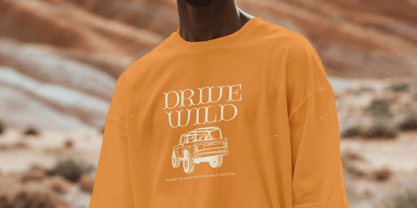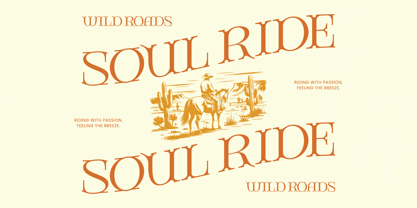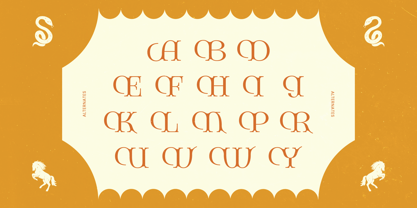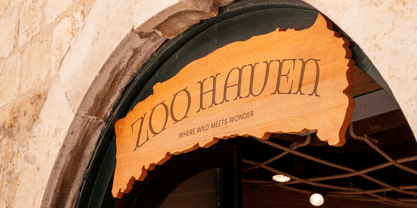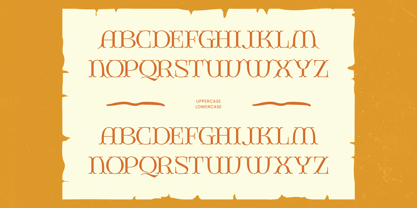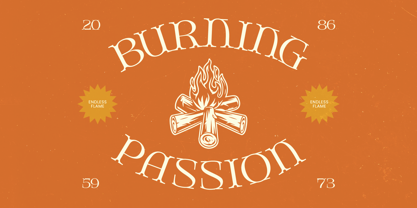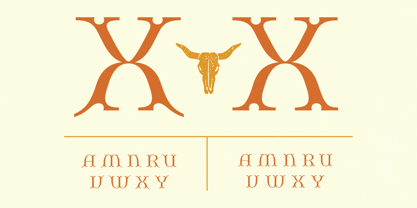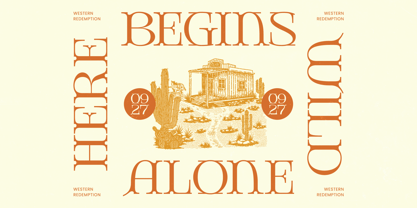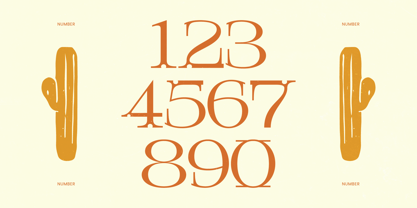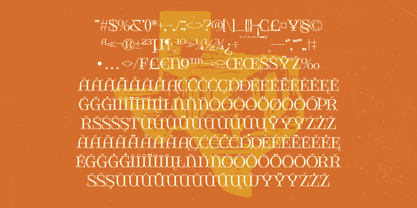
The Giqer Font Family was designed by Heru Utama Putra and published by Timelesstype Studio. Giqer contains 2 styles and family package options. More about this family
Giqer is a western vintage serif font inspired by classic frontier typography, heritage labels, and old Americana signage. Designed with strong slab-influenced serifs, decorative inner cuts, and confident proportions, this typeface captures the authentic character of traditional western print while maintaining modern clarity. The bold structure and subtle ornamental details give Giqer a rugged yet refined personality, making it ideal for logos, whiskey labels, brewery branding, packaging, posters, badges, apparel graphics, and rustic editorial layouts. With 349 glyphs and 17 alternates, it offers flexibility for creating distinctive vintage compositions while preserving stylistic consistency. Giqer works beautifully in both print and digital applications, delivering a timeless western aesthetic with bold presence and heritage charm.
Giqer